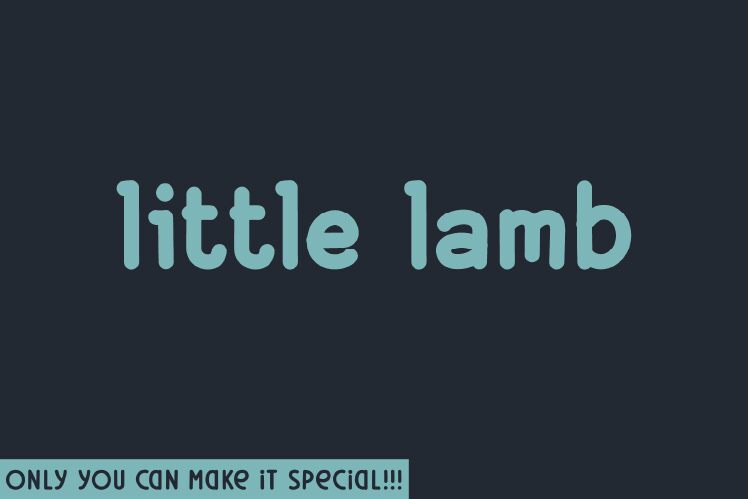
Little Lamb font by Hanna Bie is a playful display font with a whimsical mood. The sans-serif typeface has soft, rounded edges. Despite small imperfections in the glyphs’ shapes, the overall appearance still comes out neat and clean.
This free font is ideal for typography uses that can unleash its full potential. Posters, magazines, headlines, logos as well as branding projects are all valid options of use cases to consider it for.